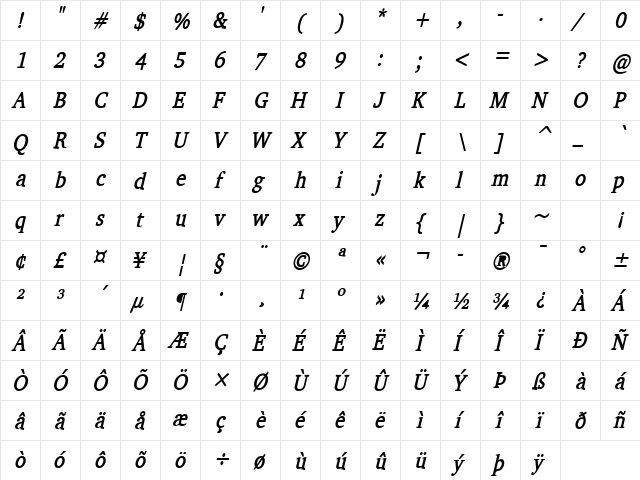
Challenge-Condensed Bold Italic Font Preview
Design Context for Challenge-Condensed Typeface
Challenge-Condensed offers clean, dependable letterforms without strong stylistic allegiance, making it a practical choice for designers who need flexibility. The slanted form adds forward momentum and visual energy. Its bold stroke weight gives it real presence on the page. The condensed width makes it efficient for tight spaces without sacrificing legibility.
Pro Tip: Try Challenge-Condensed for annotation and caption copy alongside an upright companion — the contrast in angle creates a dynamic but ordered typographic system.